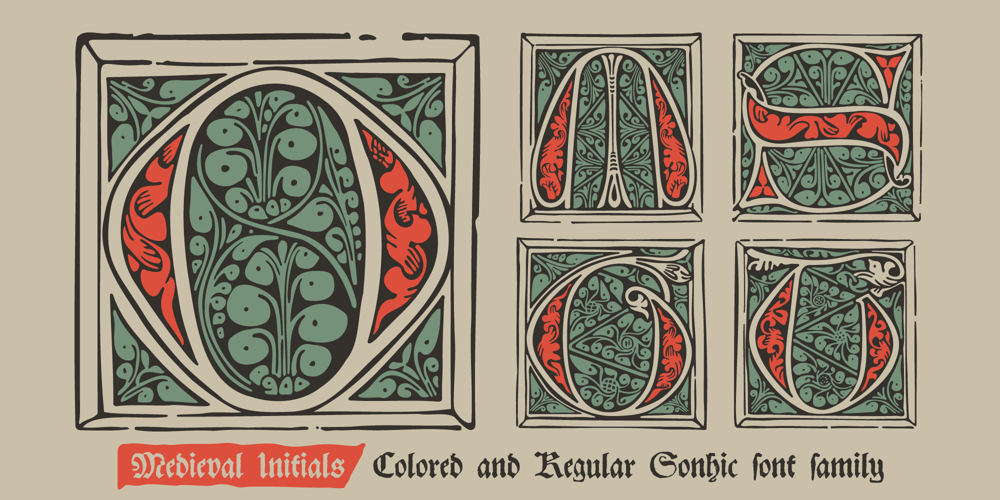
Medieval Initials Font Family was designed by Roman Korolev and published by Kaer. Medieval Initials contains 2 styles and family package options. Here is my new project based on Ptolemy’s Cosmographia published by Leonhard Holl in 1482. It’s an outstanding monument to the typographic art of early printing. The publication glorified the printer and once again confirmed the importance of the city of Ulm as one of the centers of book printing in Germany.Hall paid special attention to the artistic design of the atlas. Hand-made multi-color painting adds sophistication to the design. A large, easy-to-read antique type font was used to print the text.Engraved initials are hand-painted. In original initials are hand-painted with stains and smudges all over the book, but it looks awesome. The classic floral ornament is used in the lettering embellishments.—You can use color fonts in PS CC 2017+, AI CC 2018+, ID CC 2019+, macOS 10.14 Mojave+ Please note that the Canva & Corel & Affinity doesn’t support color fonts!—Please feel free to request any help you need: kaer.pro@gmail.comThank you!